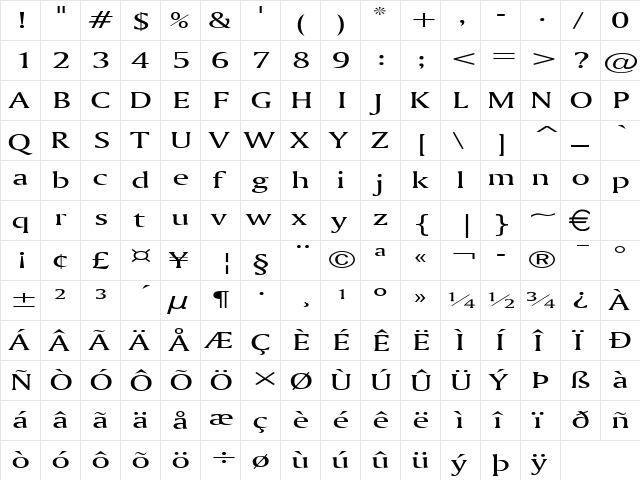
AmerettoExtended Normal
Design Context for AmerettoExtended Typeface
AmerettoExtended is a composed and adaptable typeface that performs quietly and consistently across a wide range of design contexts.